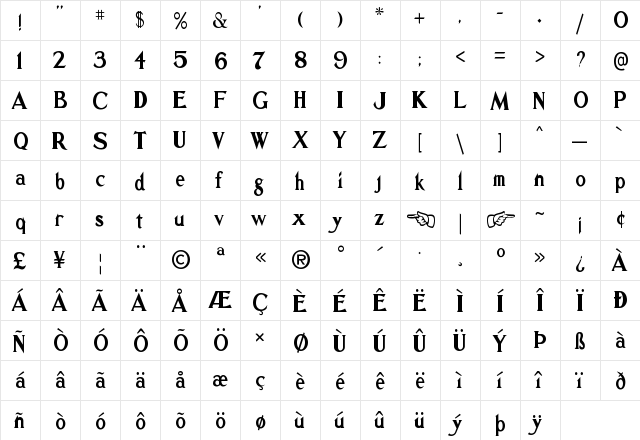
Goldburg Regular
Design Context for Goldburg Typeface
Goldburg takes a measured approach to typography — its balanced proportions and neutral character make it a reliable workhorse for both digital and print work.